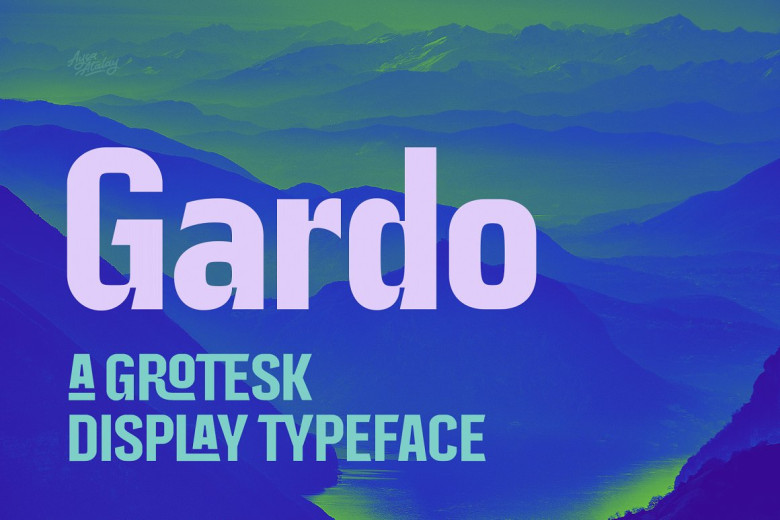
Gardo Grotesk Font
Gardo Grotesk was designed to have an immediate, impactful presence. A condensed font, Gardo Grotesk is sure to draw the eye with its attractive ligatures, catchwords, and striking visual features that stand out.
Gardo Grotesk Display Font